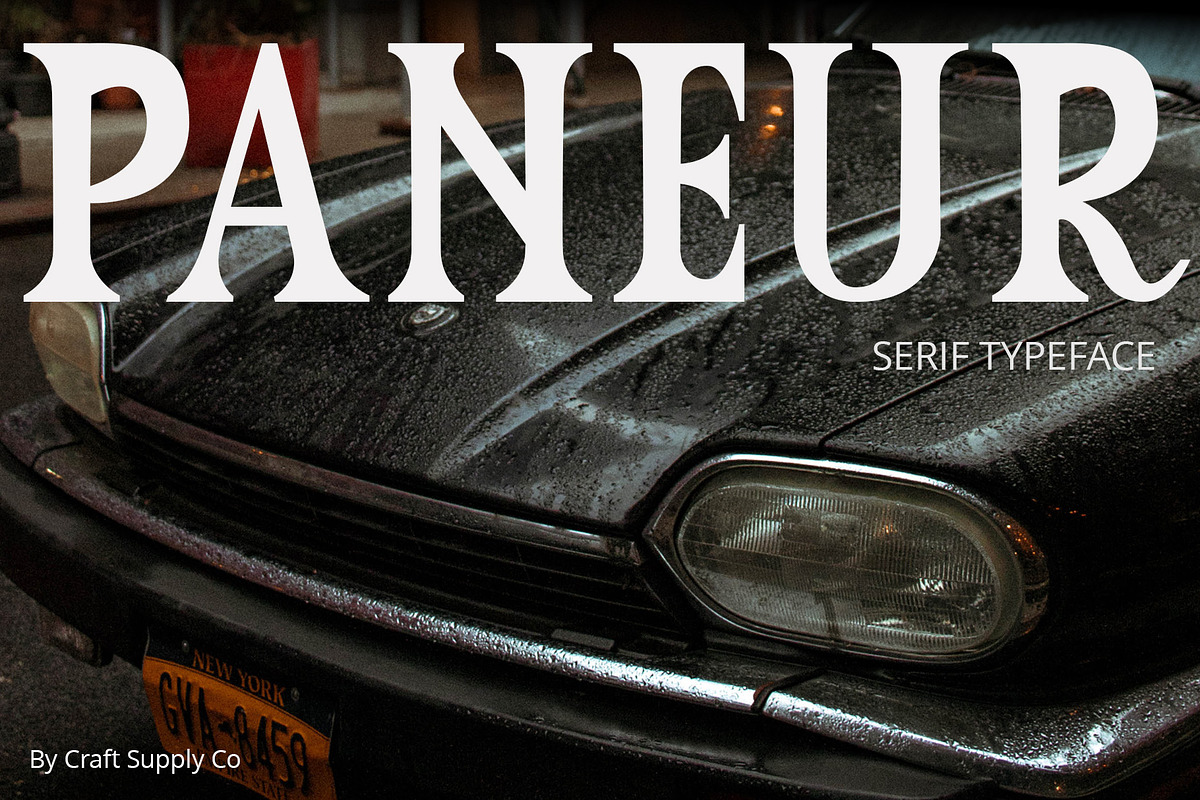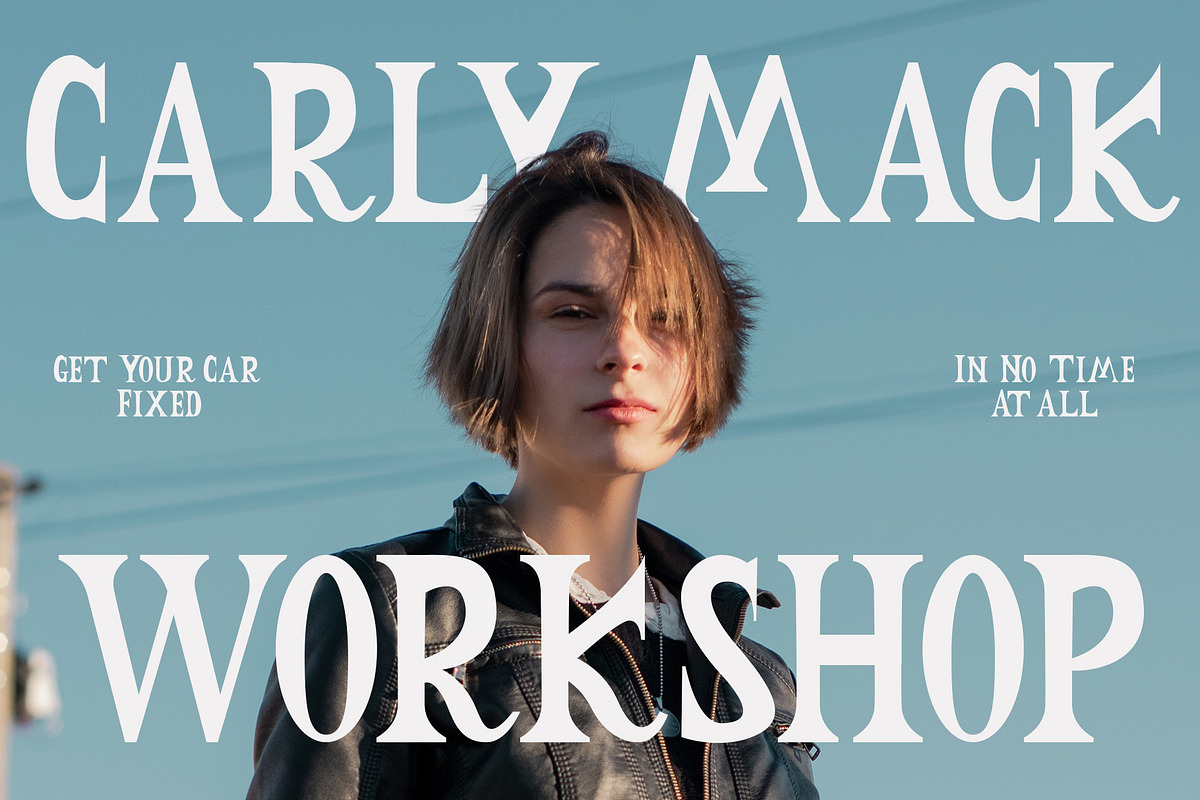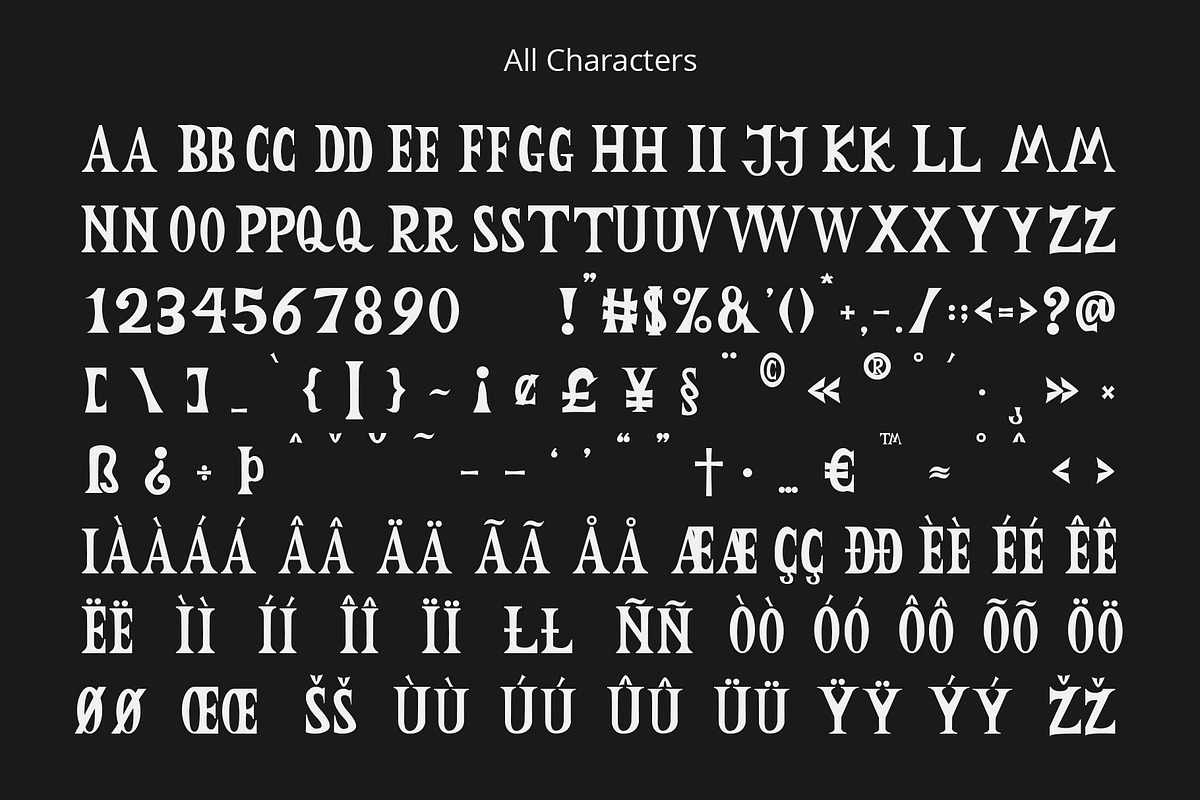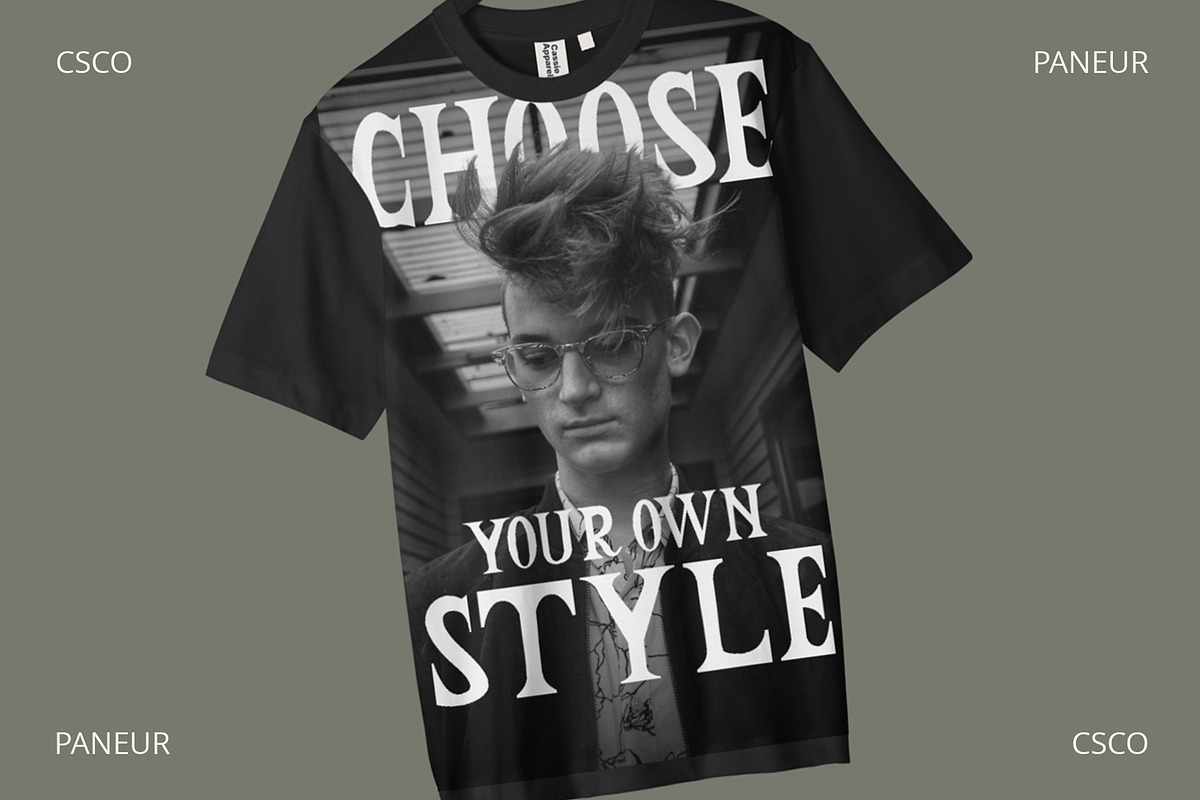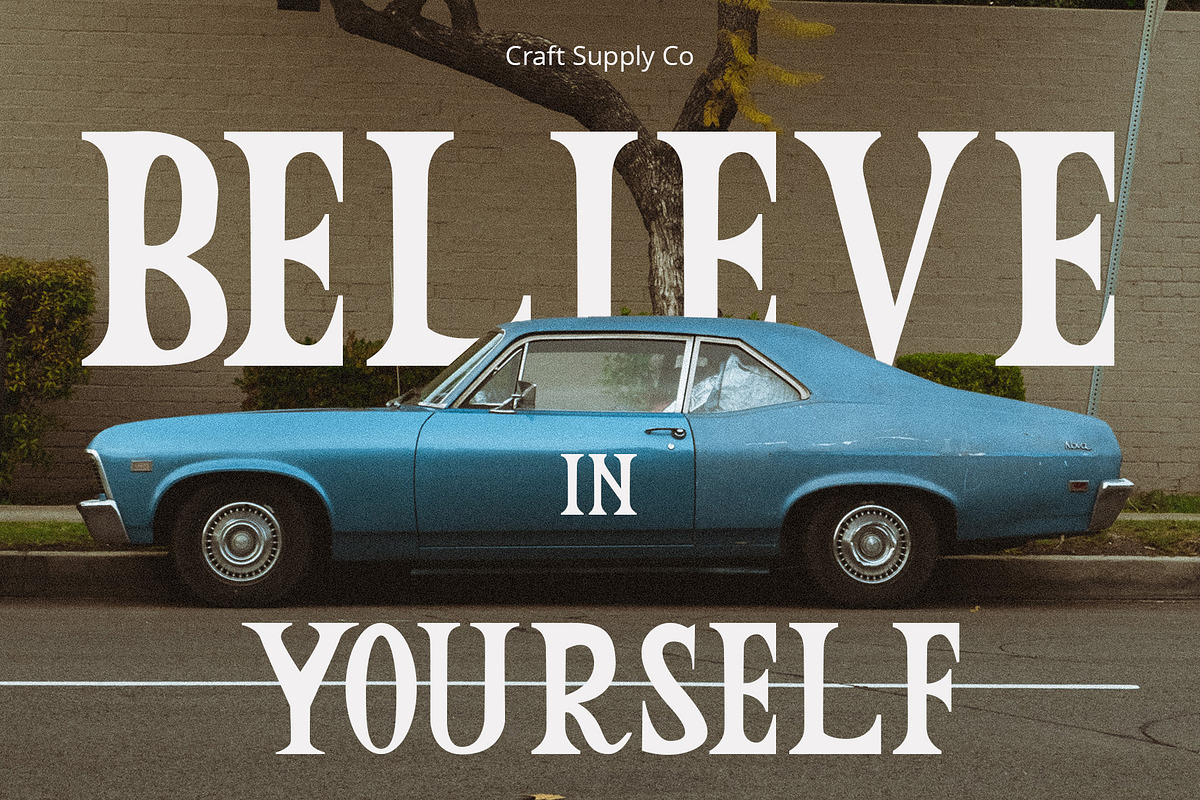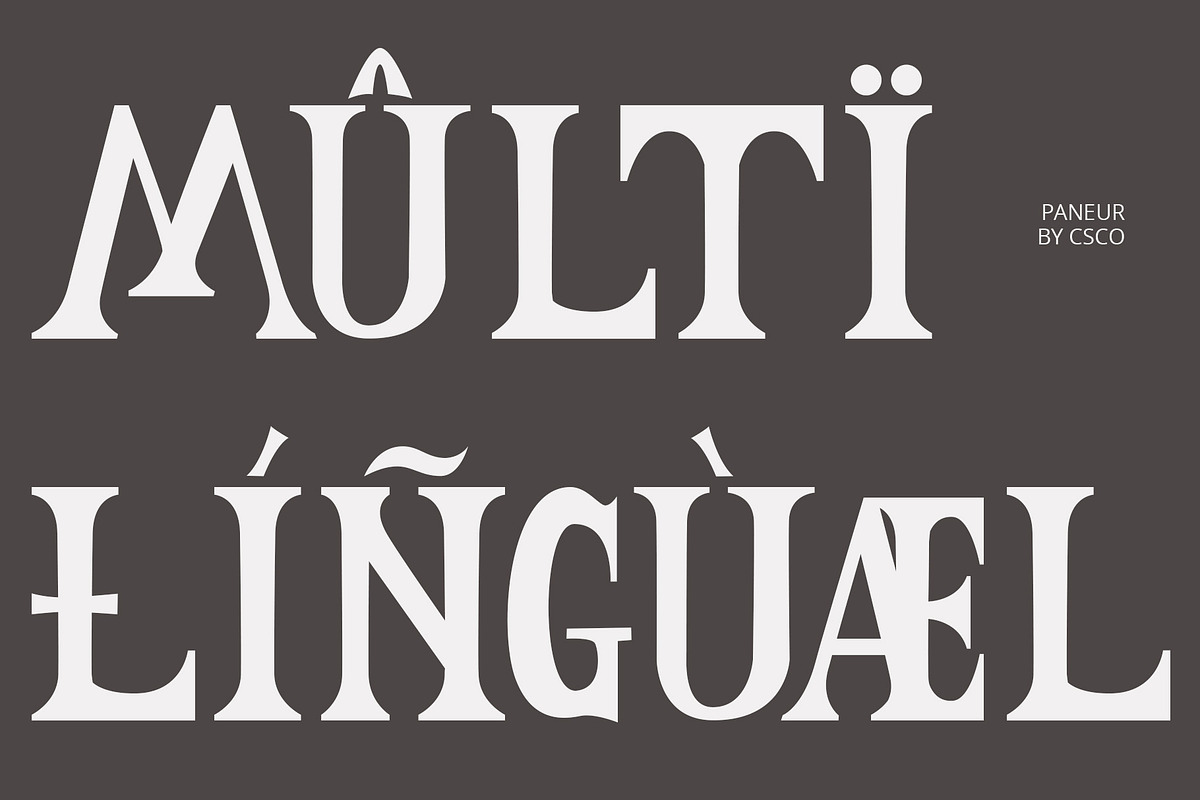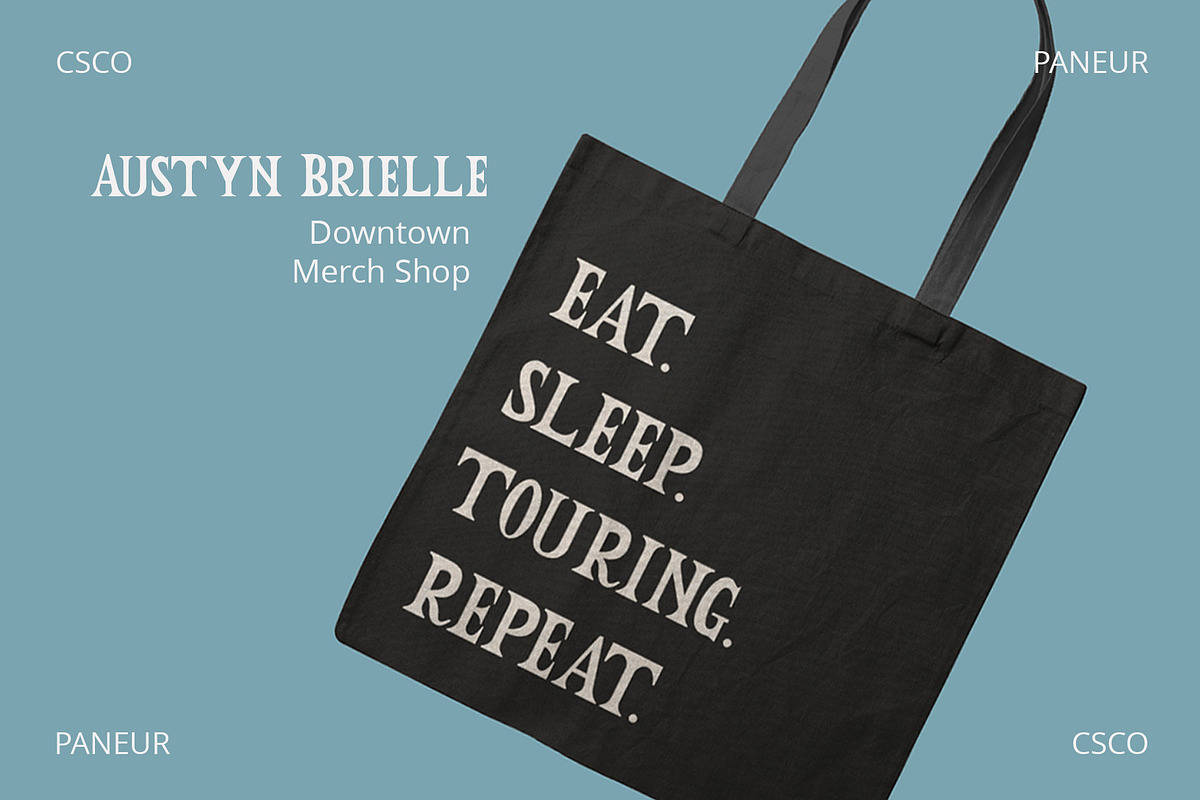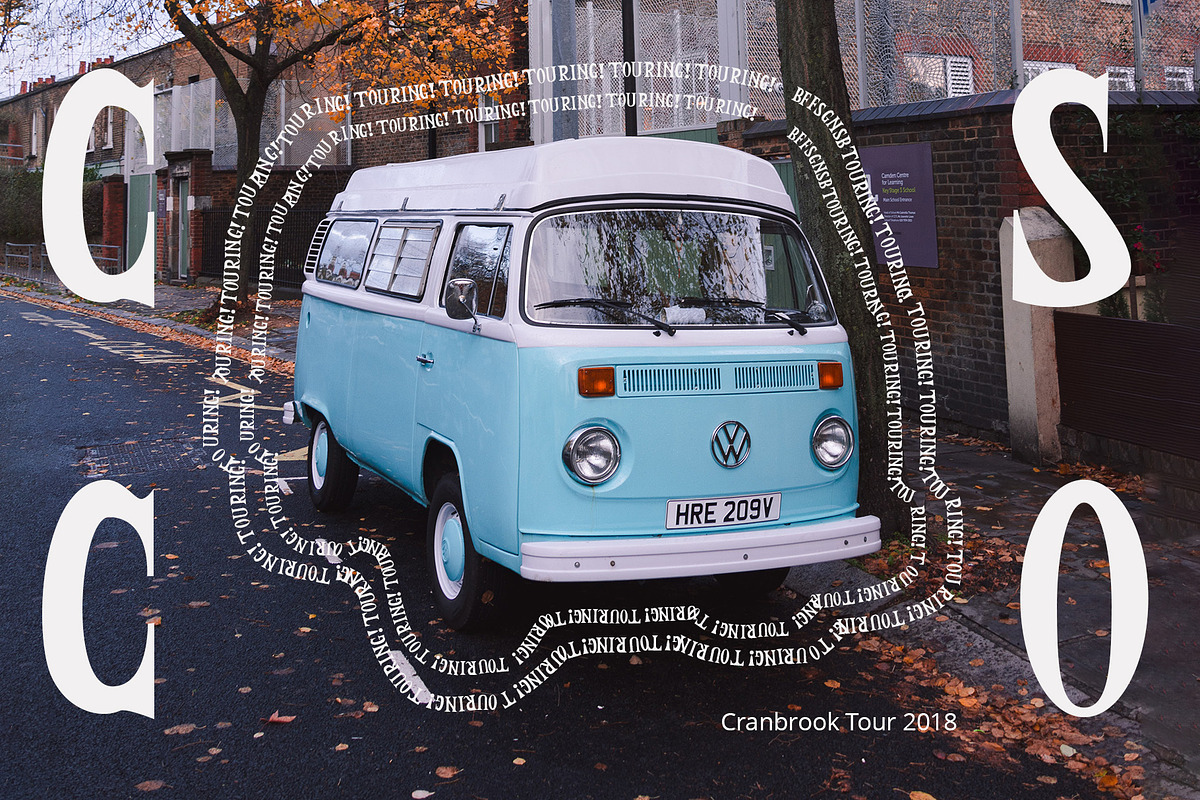
Paneur – Serif Typeface
Introducing Paneur – Expressive Serif Typeface
Serif Playfulness
Paneur – Serif Typeface is far from your typical, formal serif font; it introduces a delightful touch of playfulness to traditional design.
Informal Strokes
Notably, Paneur’s strokes take on an informal quality, adding an expressive flair to your projects while steering clear of the formality usually associated with conventional serifs.
Endless Expressivity
What sets Paneur apart is its ability to offer endless expressivity. It’s the perfect choice for those who wish to break the monotony in design, infusing each project with an invigorating energy and dynamic spirit.
Never Boring Design
Indeed, Paneur is the antidote to boring and conventional design. Its informal serifs guarantee that your creations are never dull, but rather lively, captivating, and bursting with personality.
In Conclusion
In summary, Paneur – Serif Typeface is the font of choice for non-traditional expressiveness. It introduces a playful and informal touch to your projects, breaking free from the constraints of traditional serif fonts. By choosing Paneur, you ensure that your designs are engaging, full of life, and far from mundane.